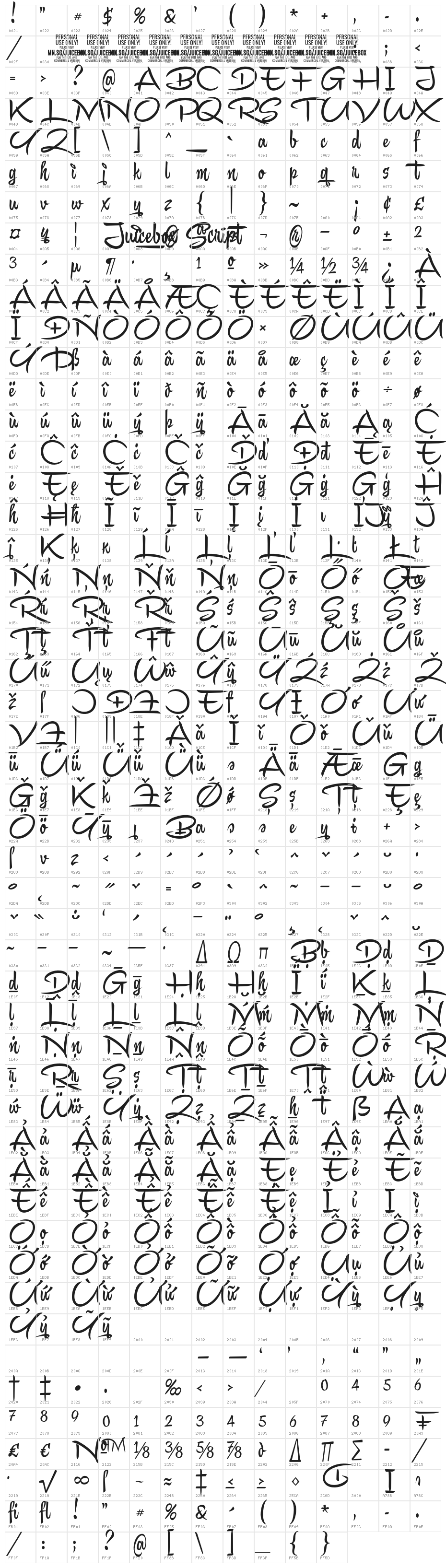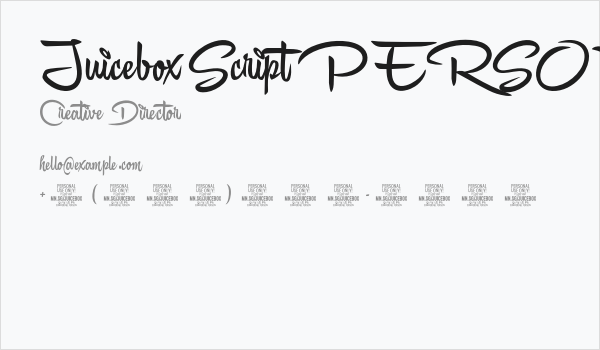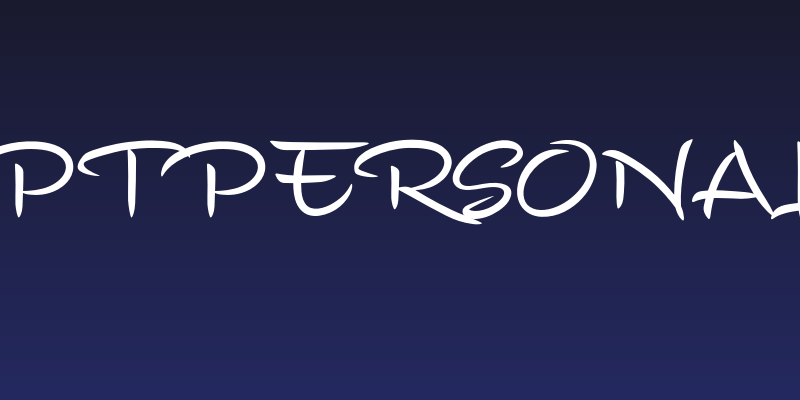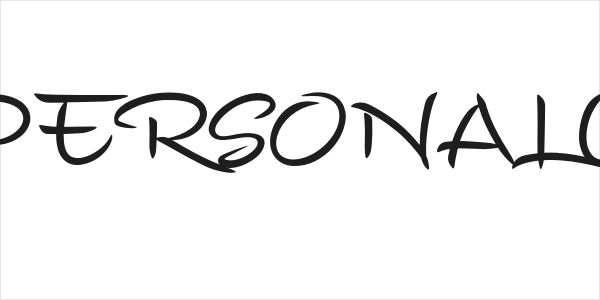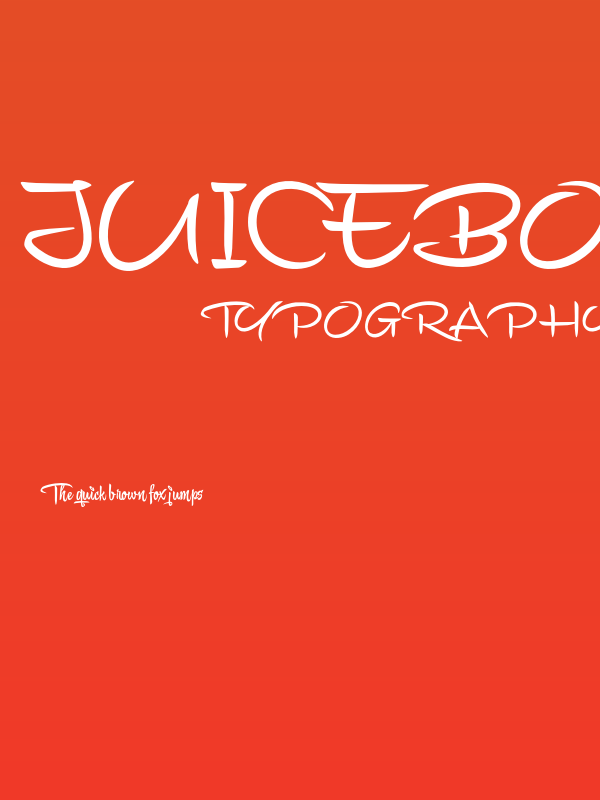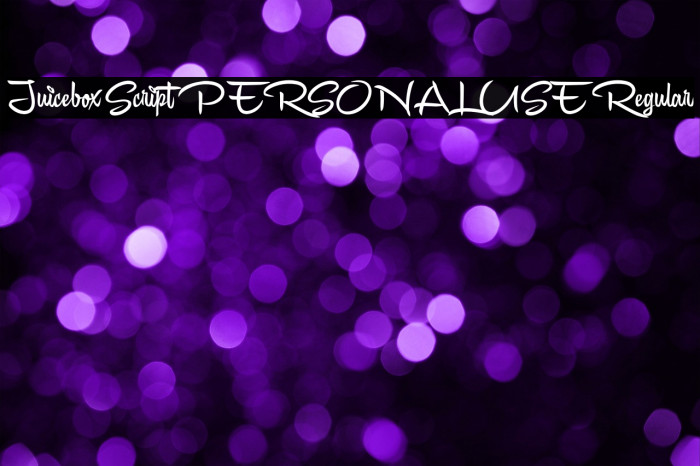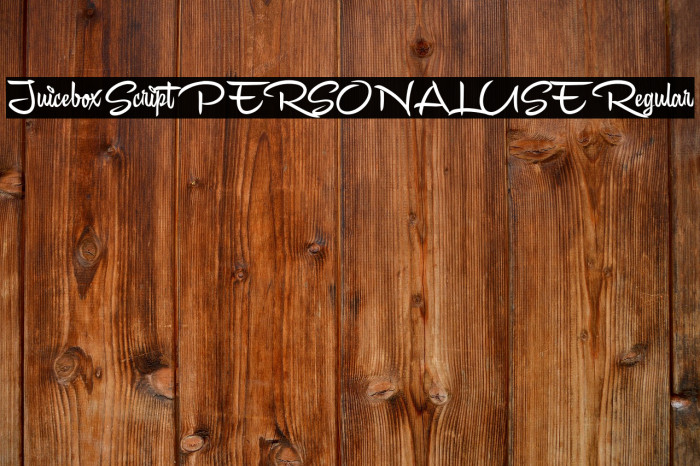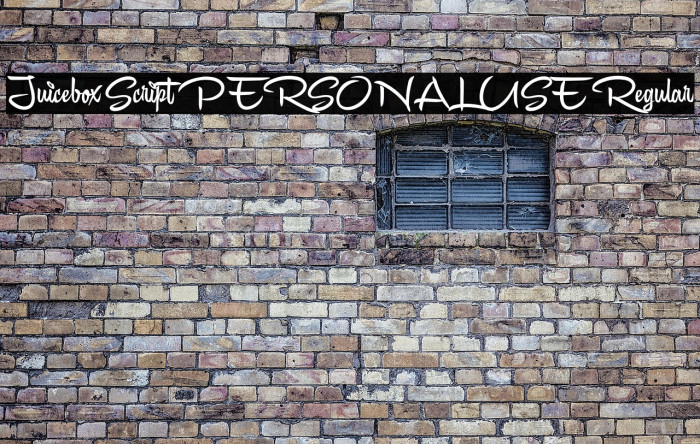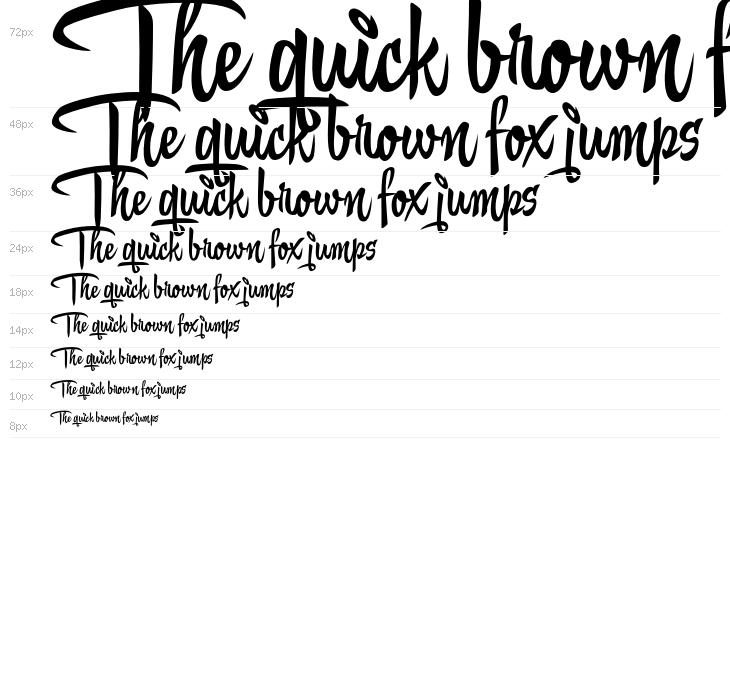
Juicebox Script PERSONAL USE Regular Font
| Gesamtstil | Modern, Decorative |
| Anwendungsfall | Logos, Headlines, Creative projects |
| Vorgeschlagene Projekte | Ideal for greeting cards, invitations, branding, and social media graphics where a personal and artistic touch is desired. |